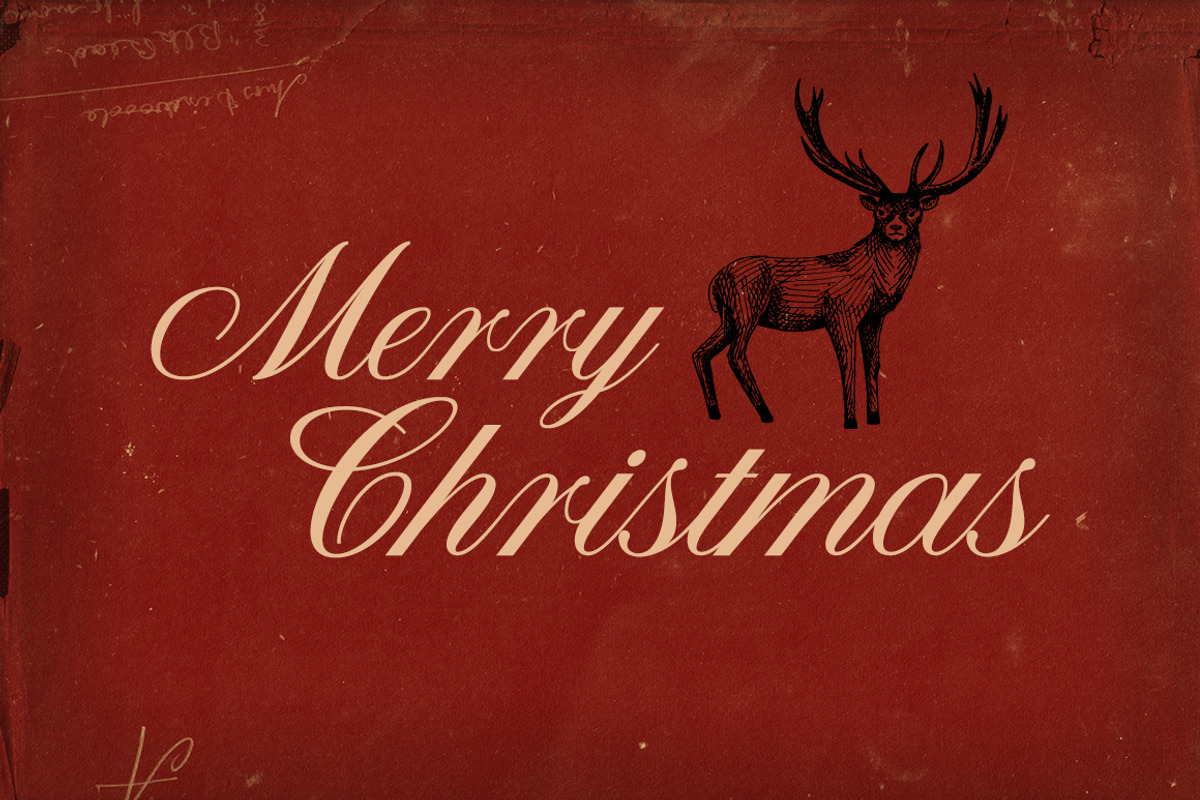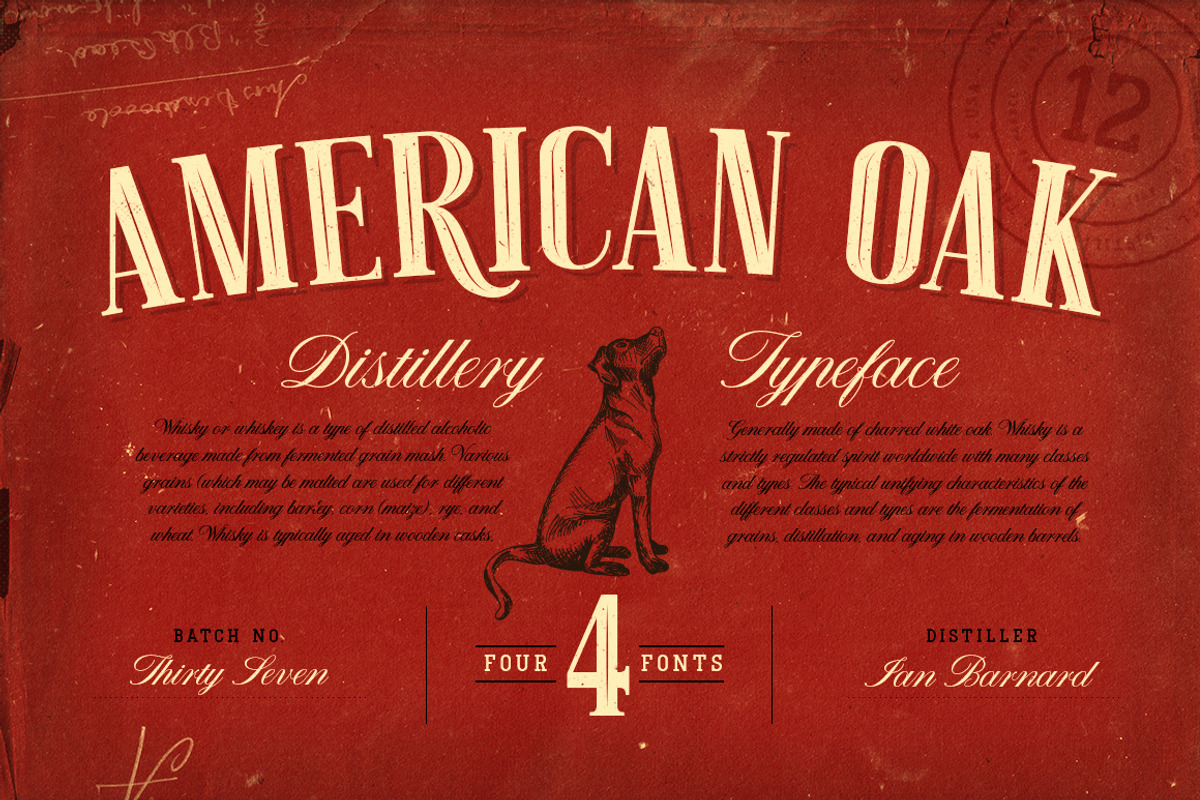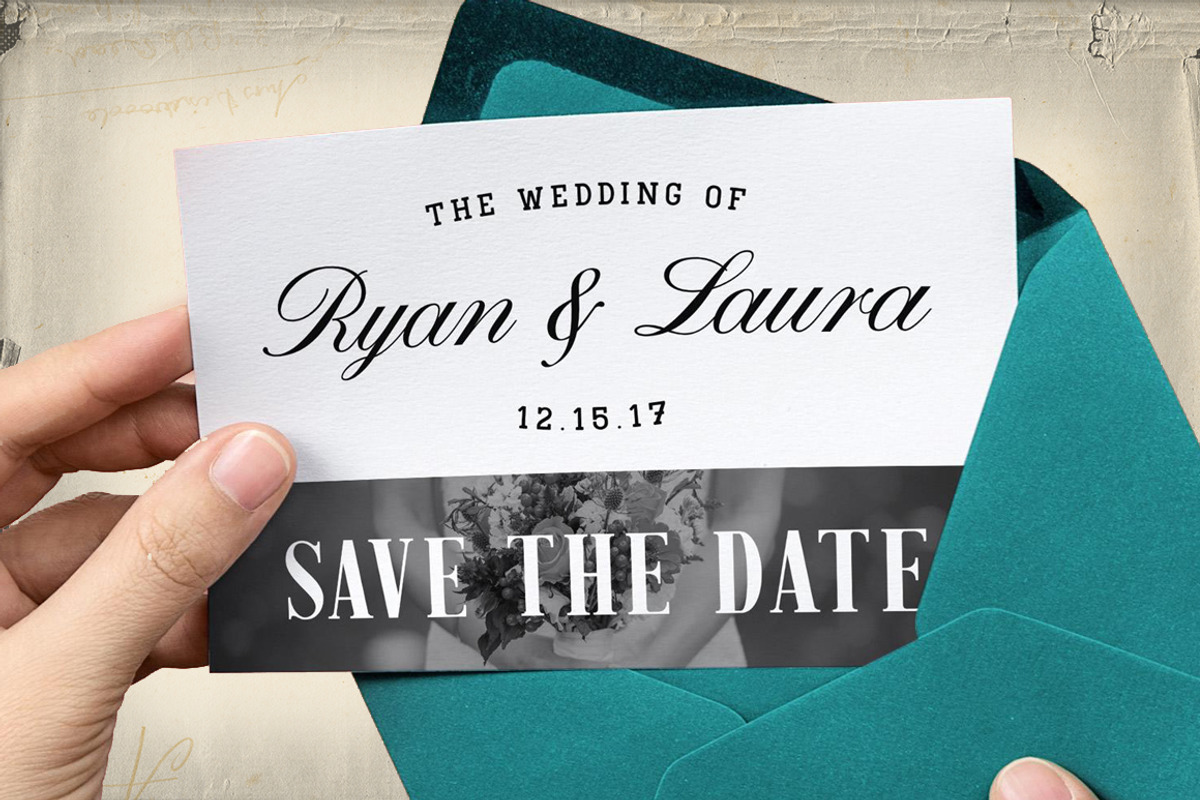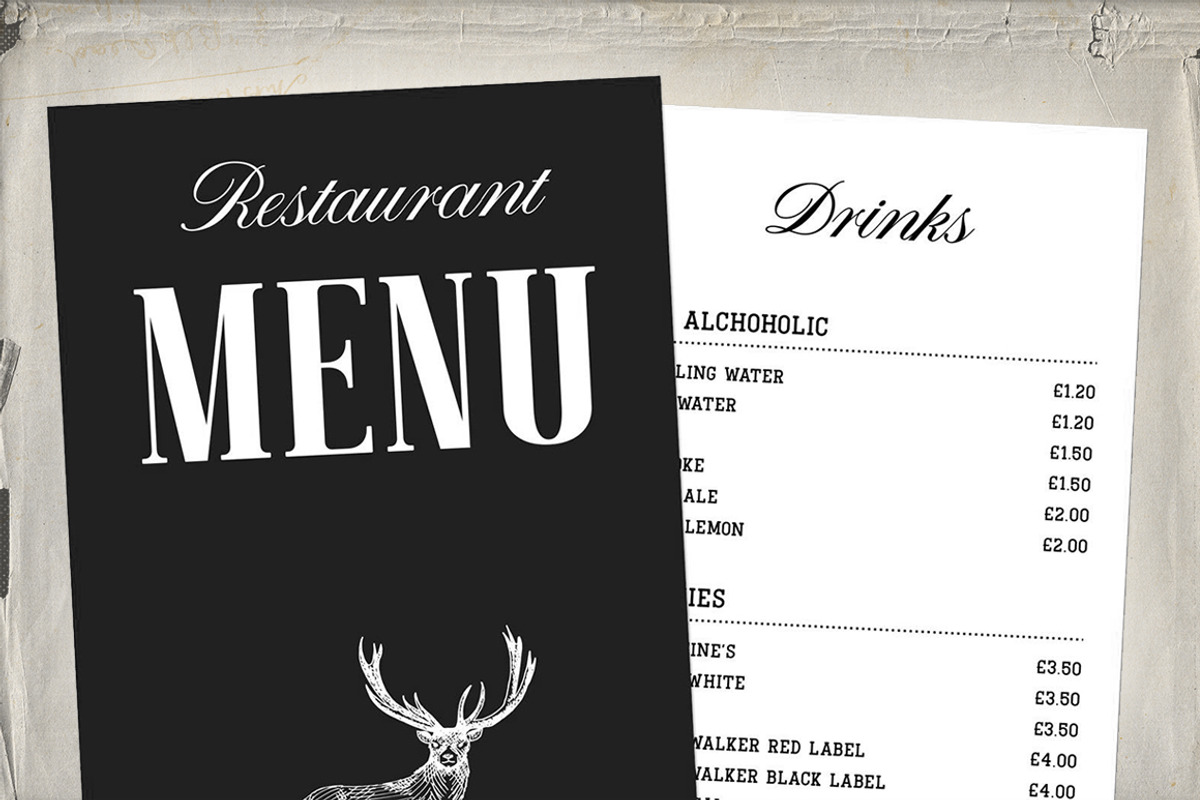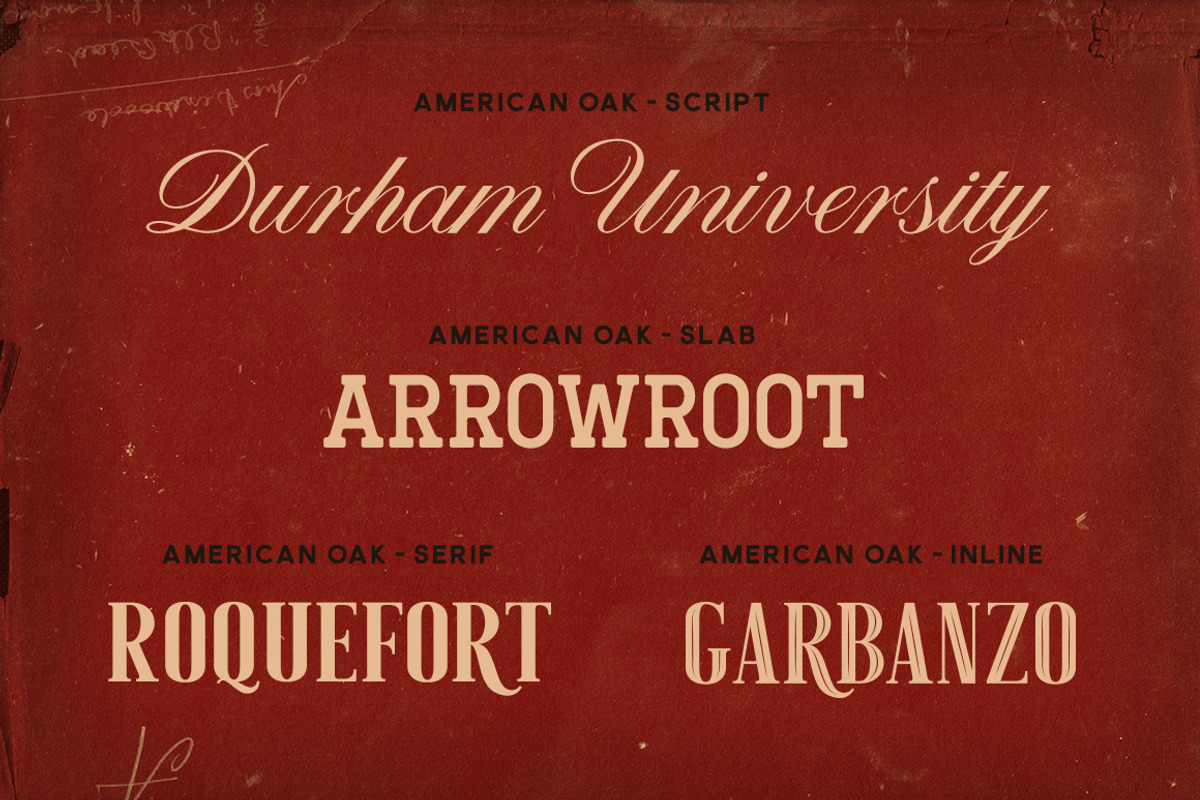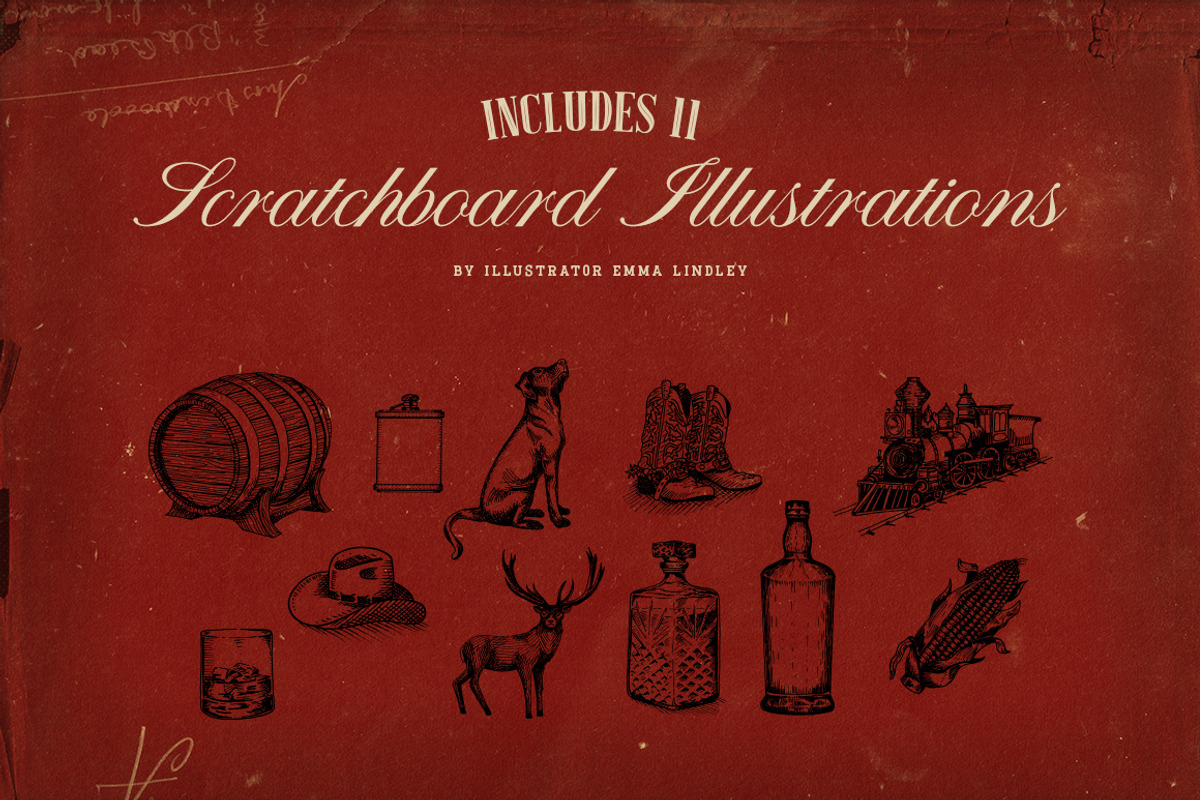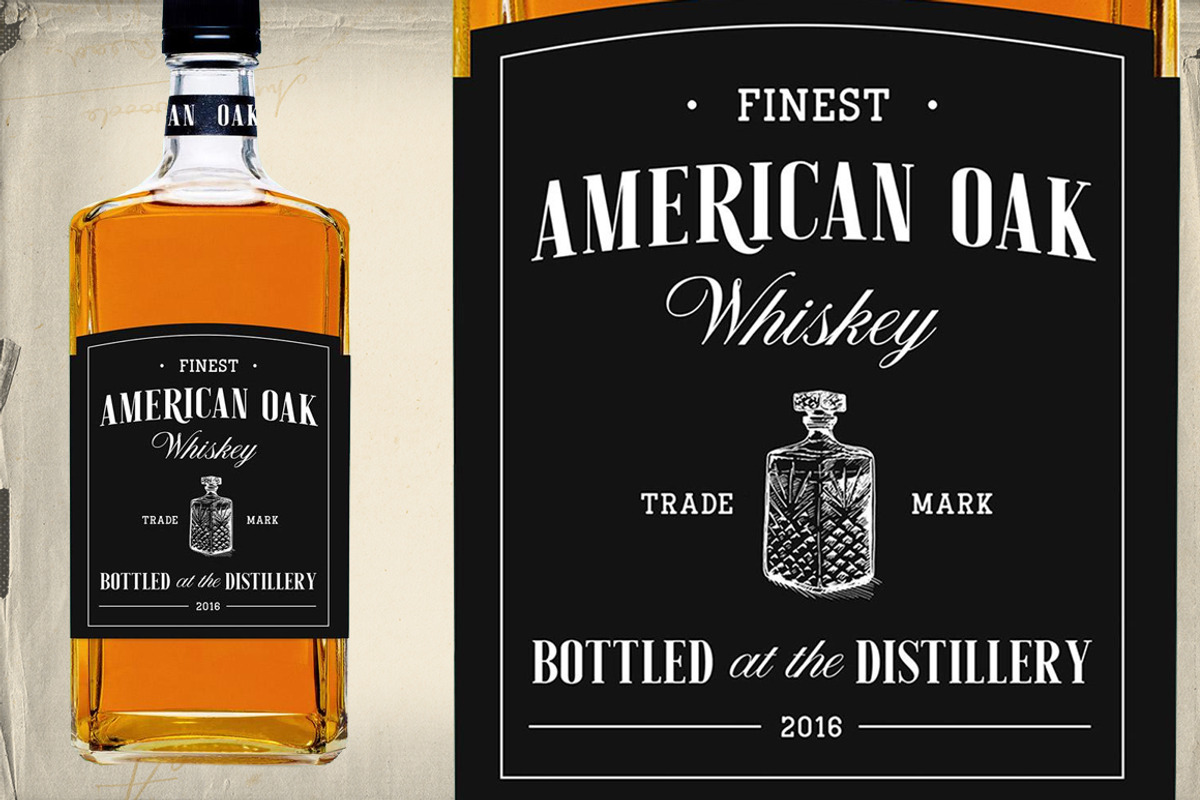
American Oak - 4 Font Set
I've always been drawn to the beautiful typography of whiskey, gin, rum & bourbon bottle labels, as they enhanced the history that is behind this aged old spirits. A combination of elegant scripts and rugged serifs, these labels give sensibility to the slow process which these spirits go through in the distilling process.
This set of 4 different styles is not bound to label design but any creation that requires the combination of masculine and feminine, to achieve a look that is rich and classy.
- American Oak: Script
- American Oak: Serif
- American Oak: Serif Inline
- American Oak: Slab Serif